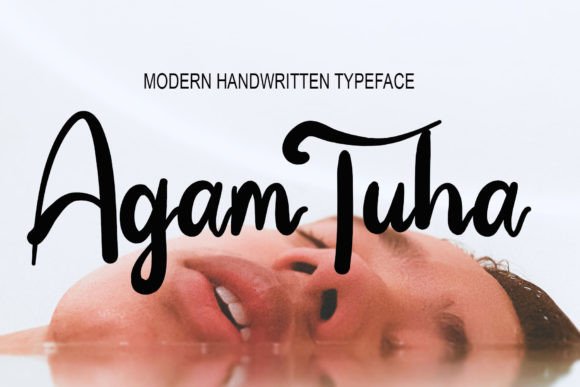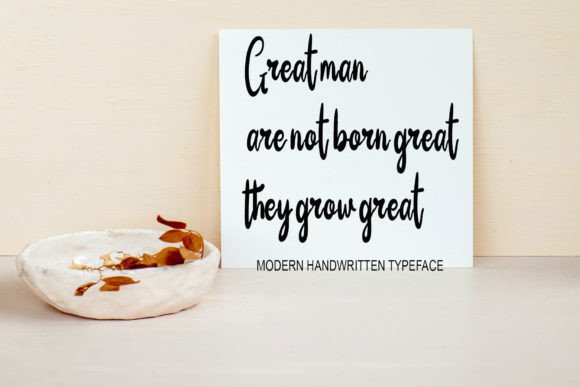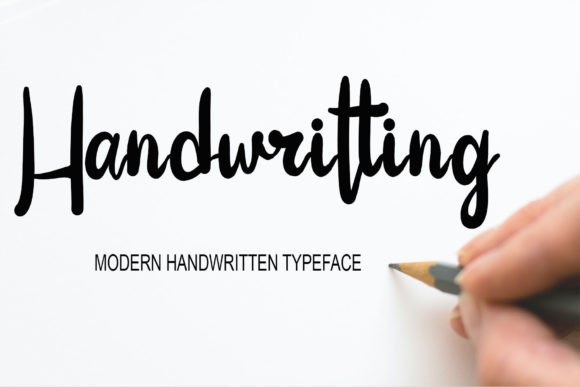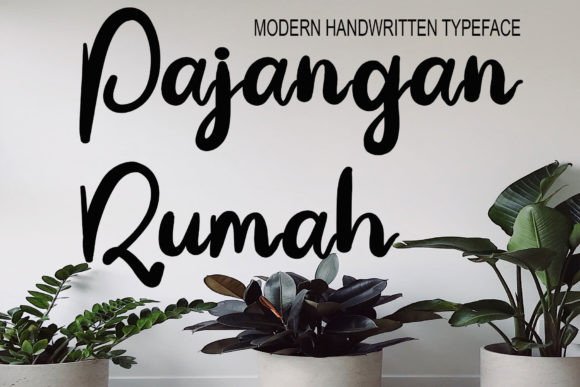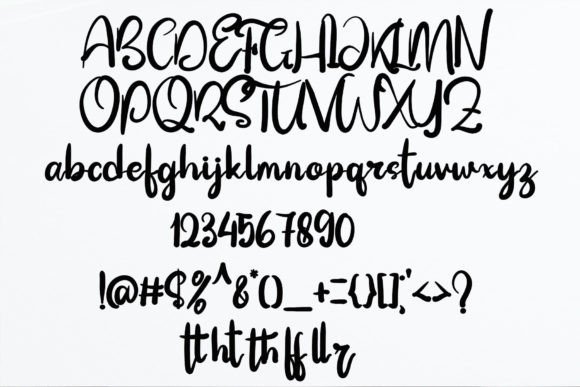
About Agam Tuha
Agam Tuha is a modern handwritten typeface. You can use this lovely font for websites, wedding invitations, business cards, signatures, and advertisements. Even though it looks simple, this font still looks cool and stylish.
Agam Tuha Signature Font is perfect for logos, branding, wedding invitations, business cards, greeting cards, posters, magazines, social media, procreate font, planner prints, and websites.
Get creative with its unique playfulness, and use it to brighten up any crafting project!